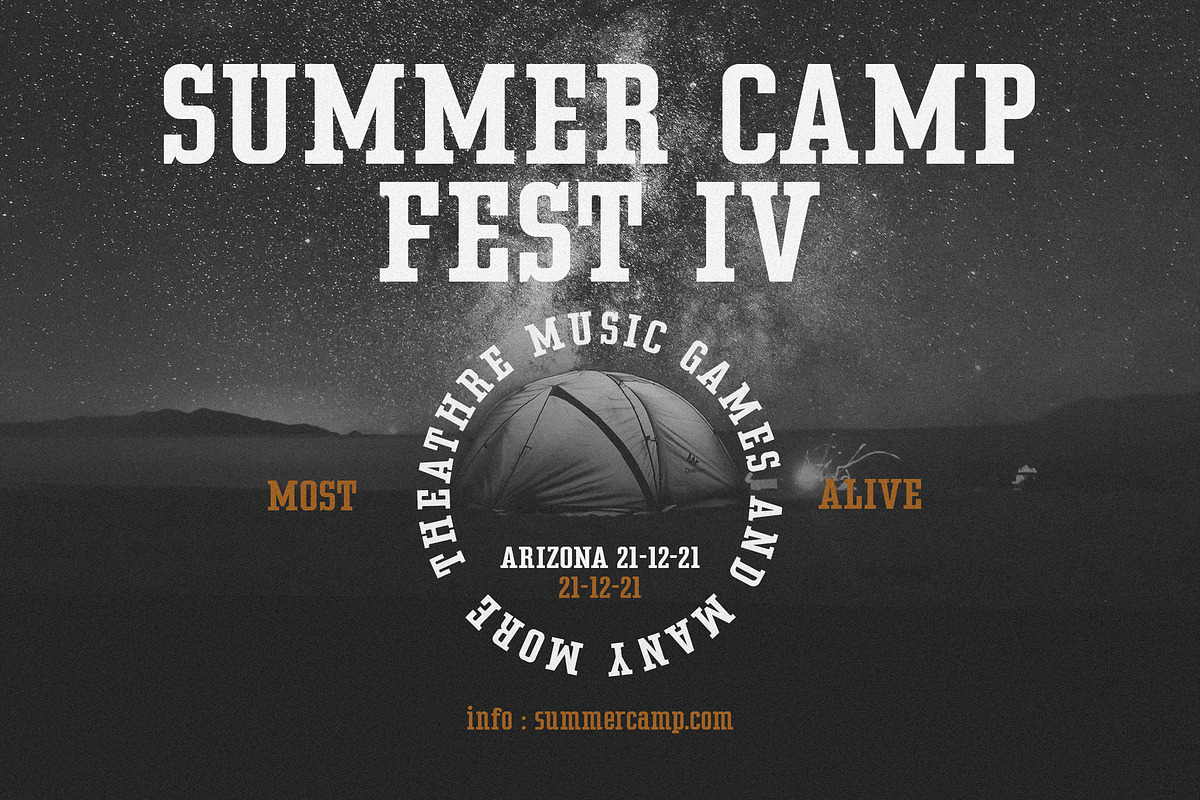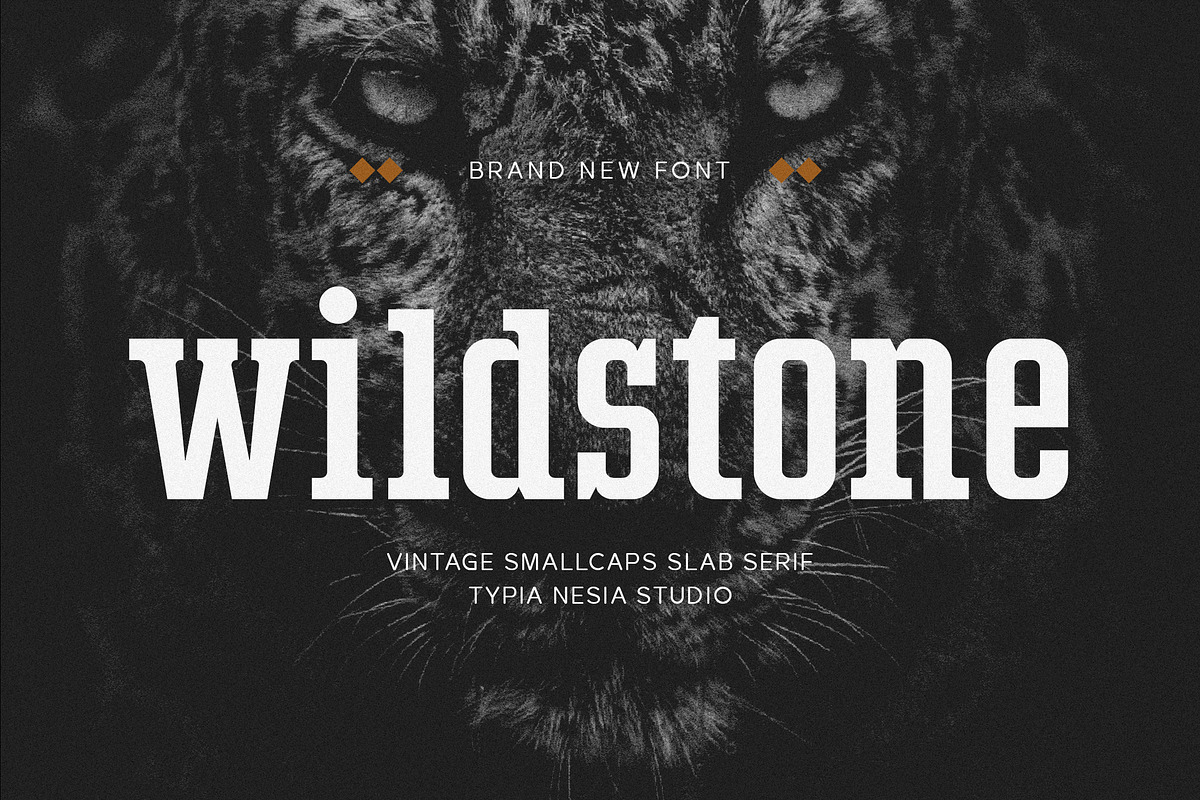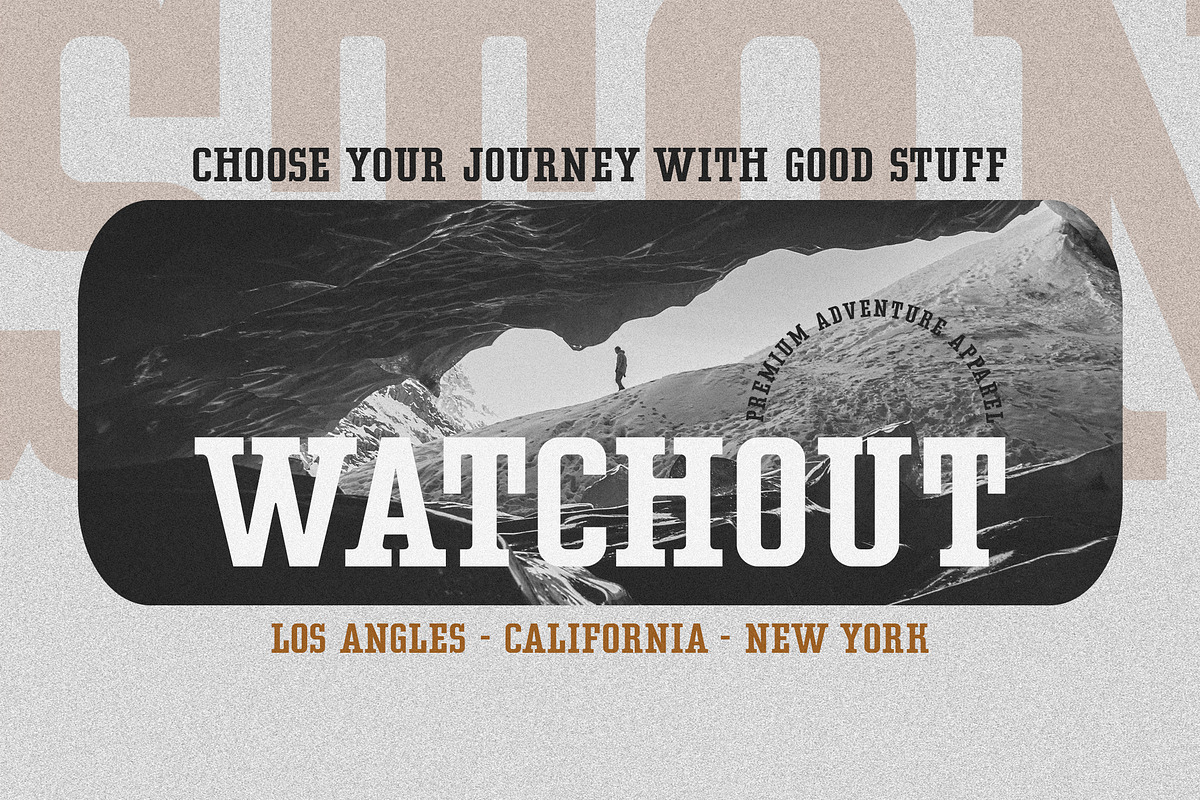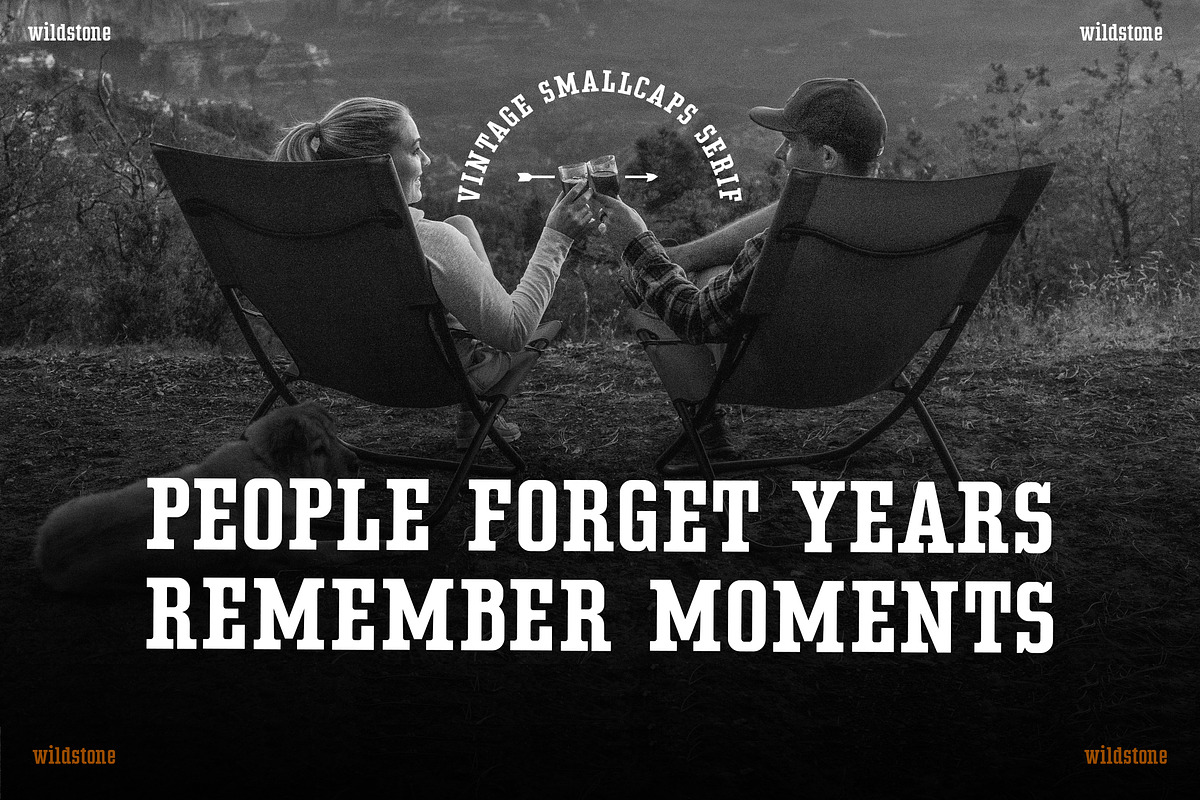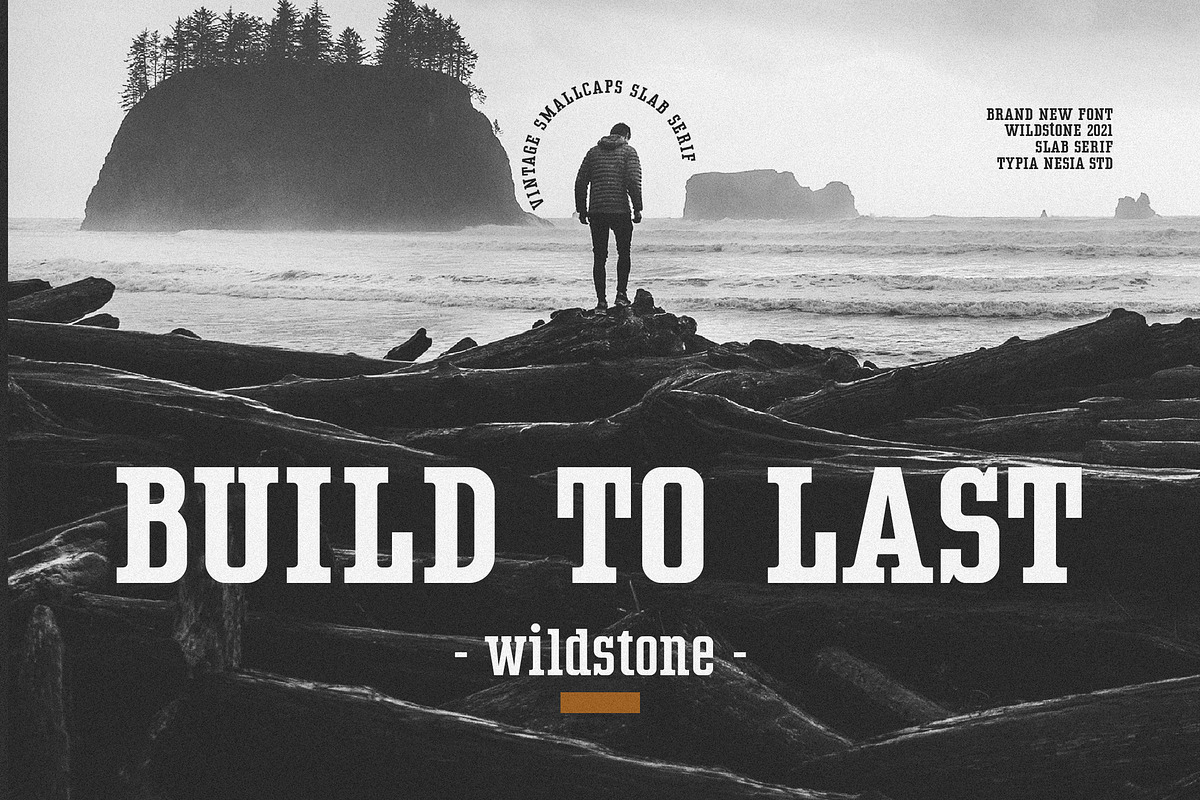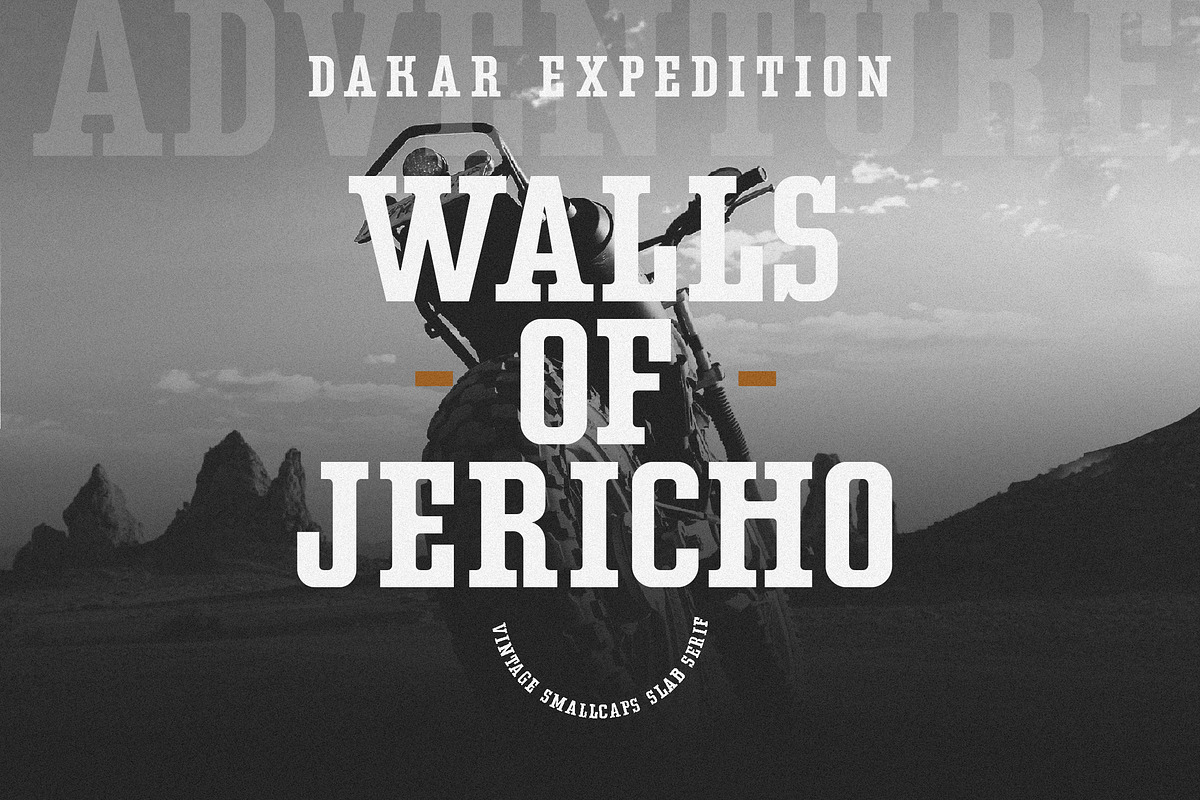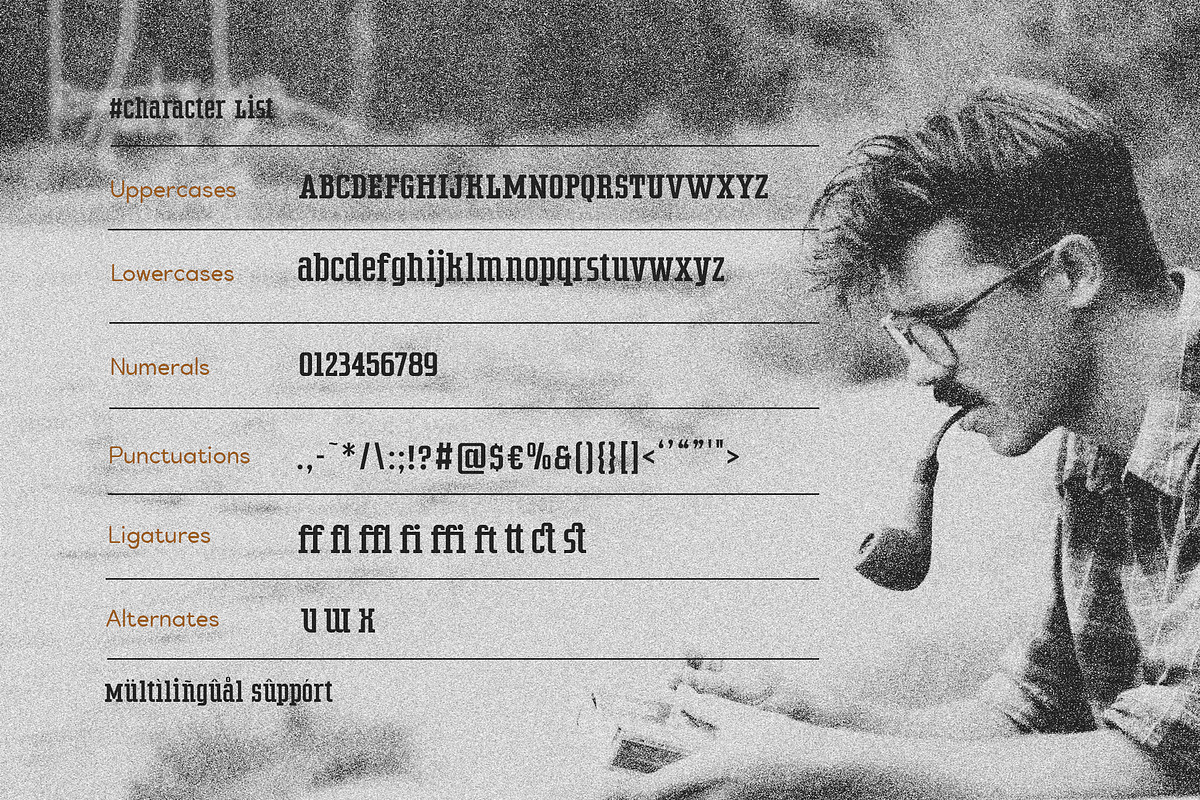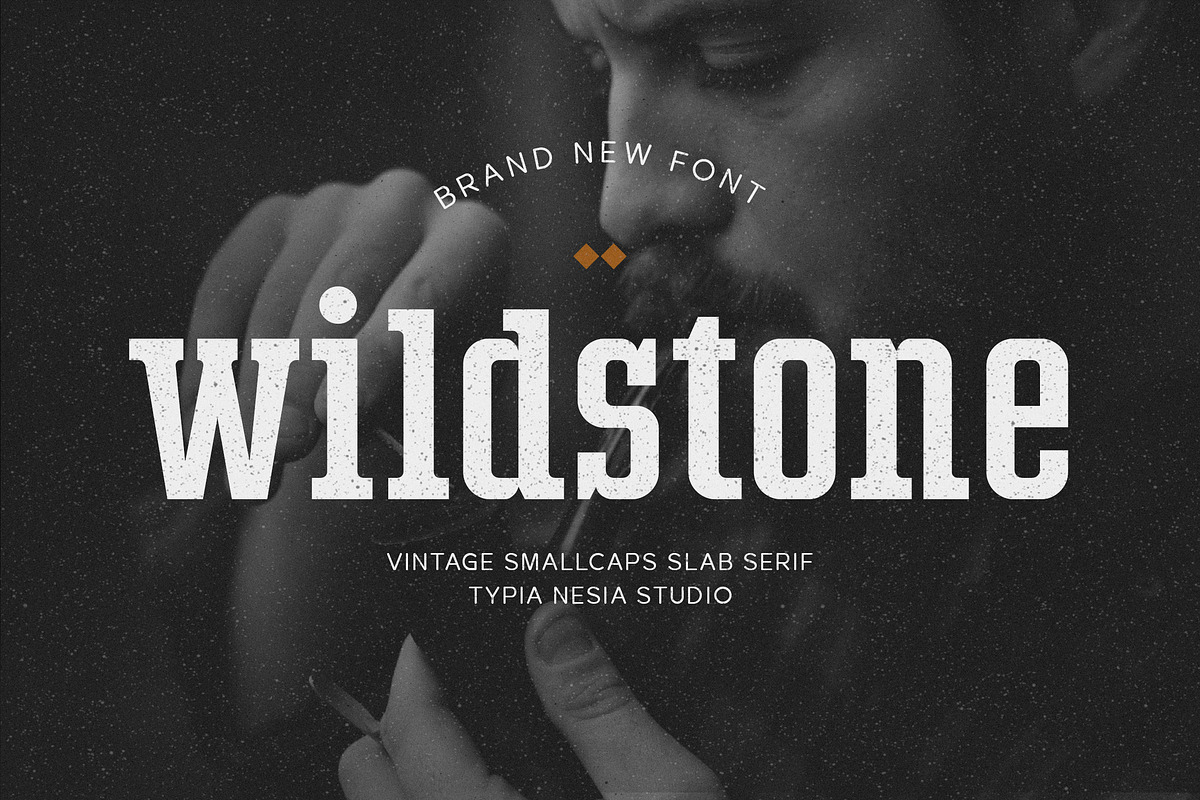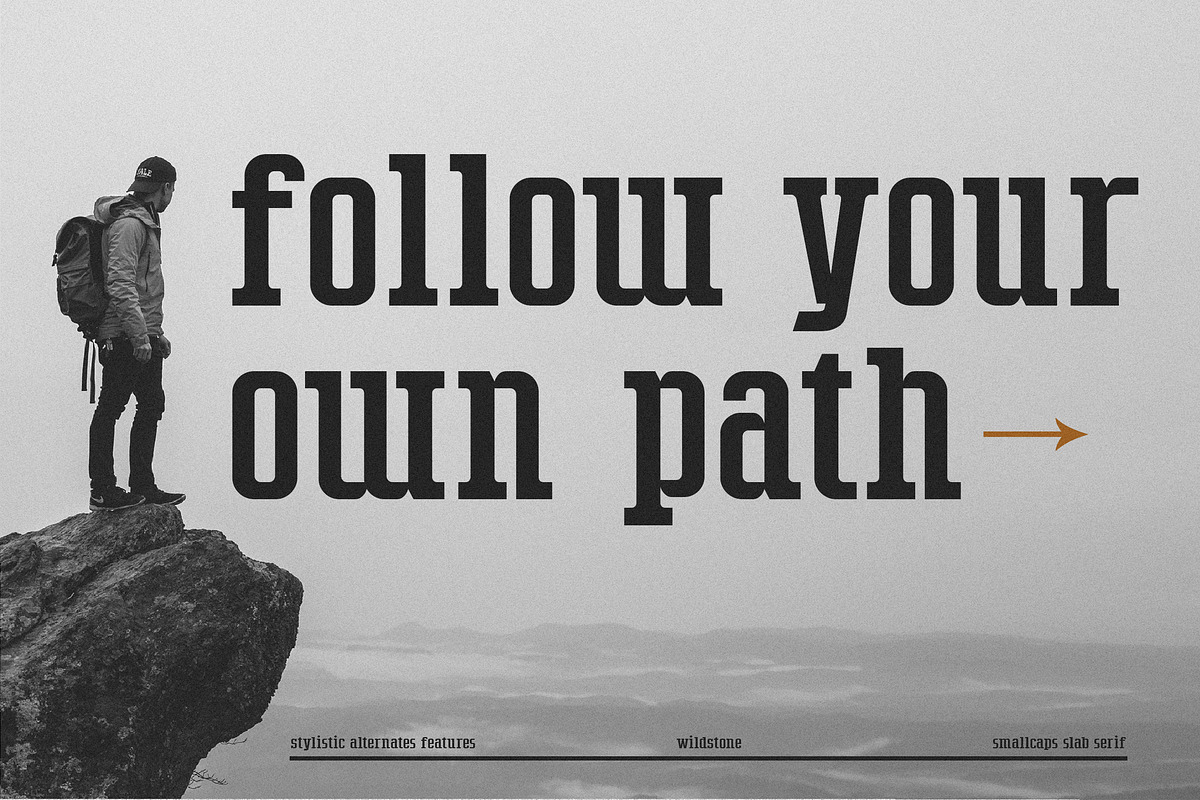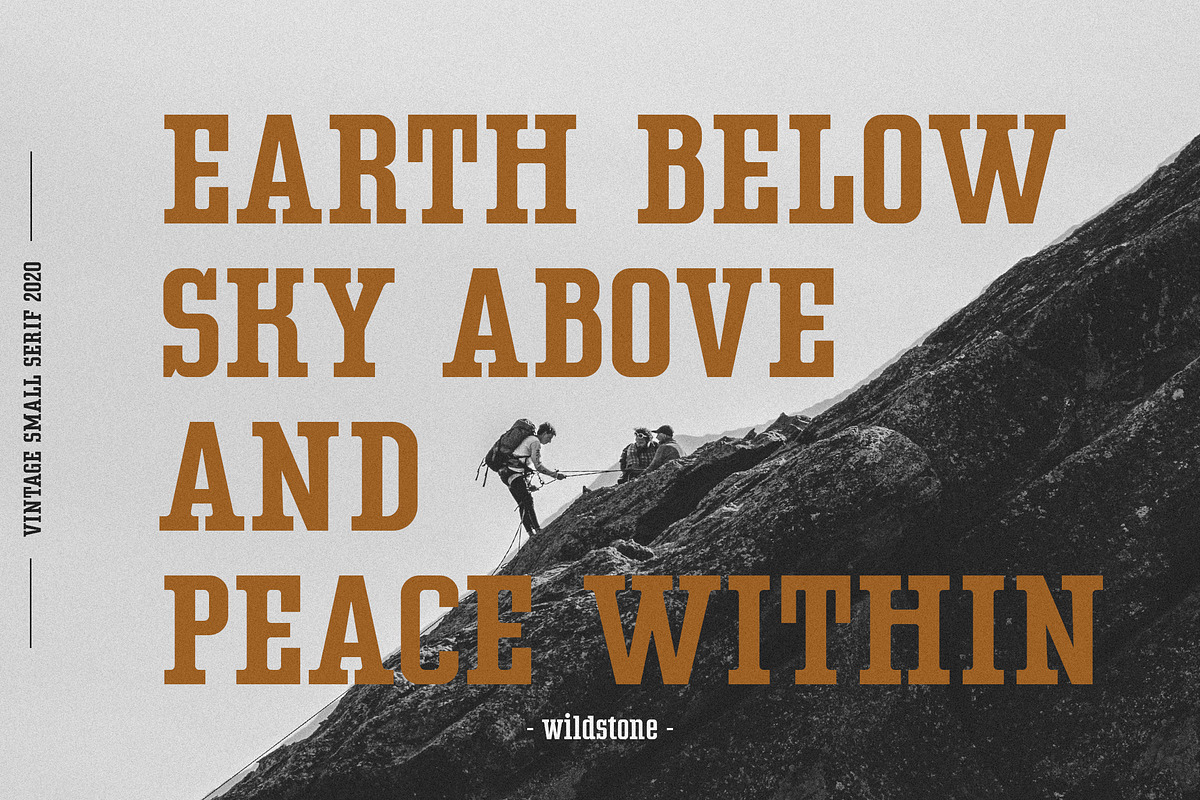
Wildstone Slab
Wildstone - wild vintage adventure camp - mountain hiking smallcaps display slab serif
Suitable for any design needs : logo, branding, modern advertising design, vintage garage design, adventure / mountain hiking brand, hardcore music, animation or movie, logos, retro summer poster quote, book / novel cover Title, editorial design, website / blog, card, and more.
Typia Nesia Std